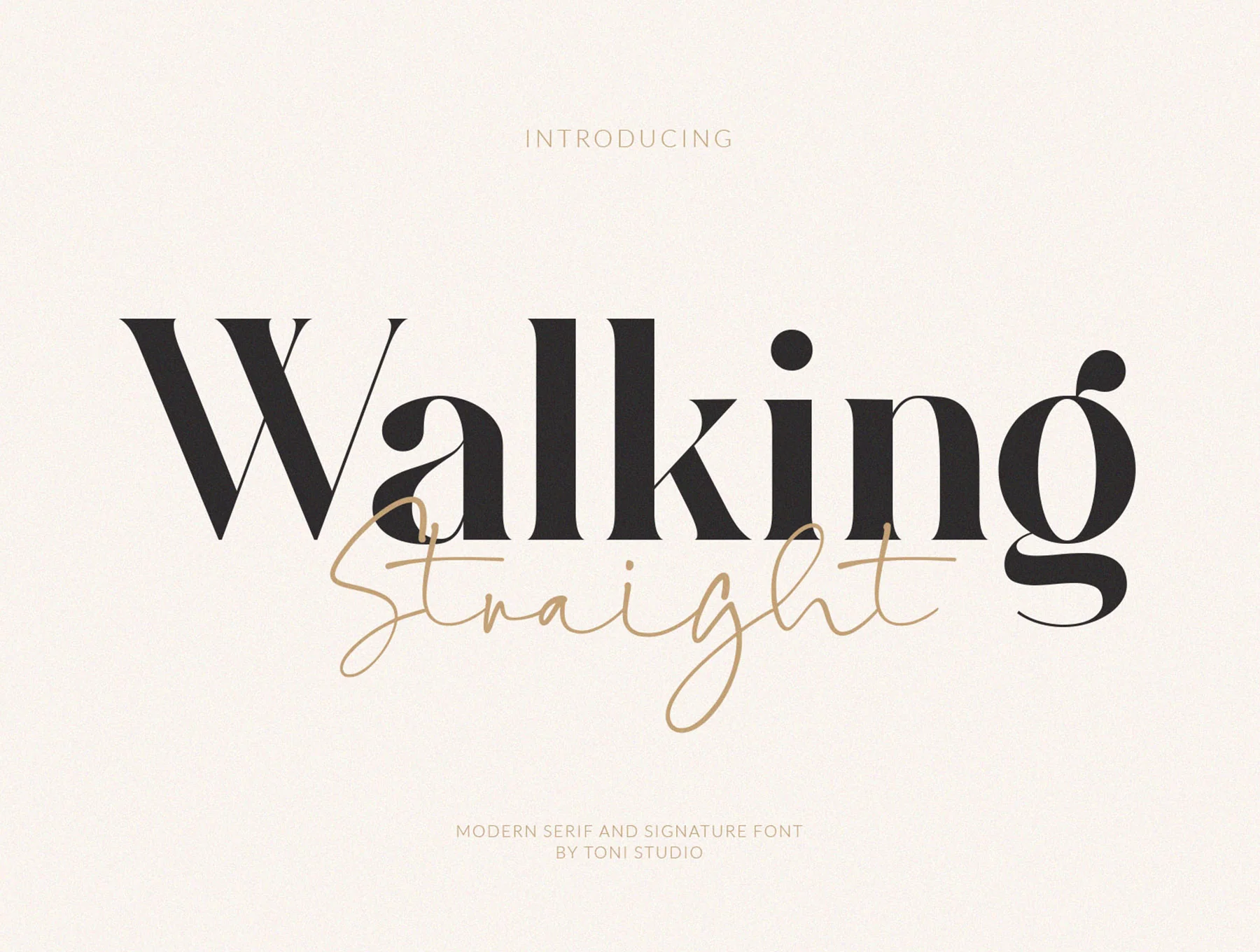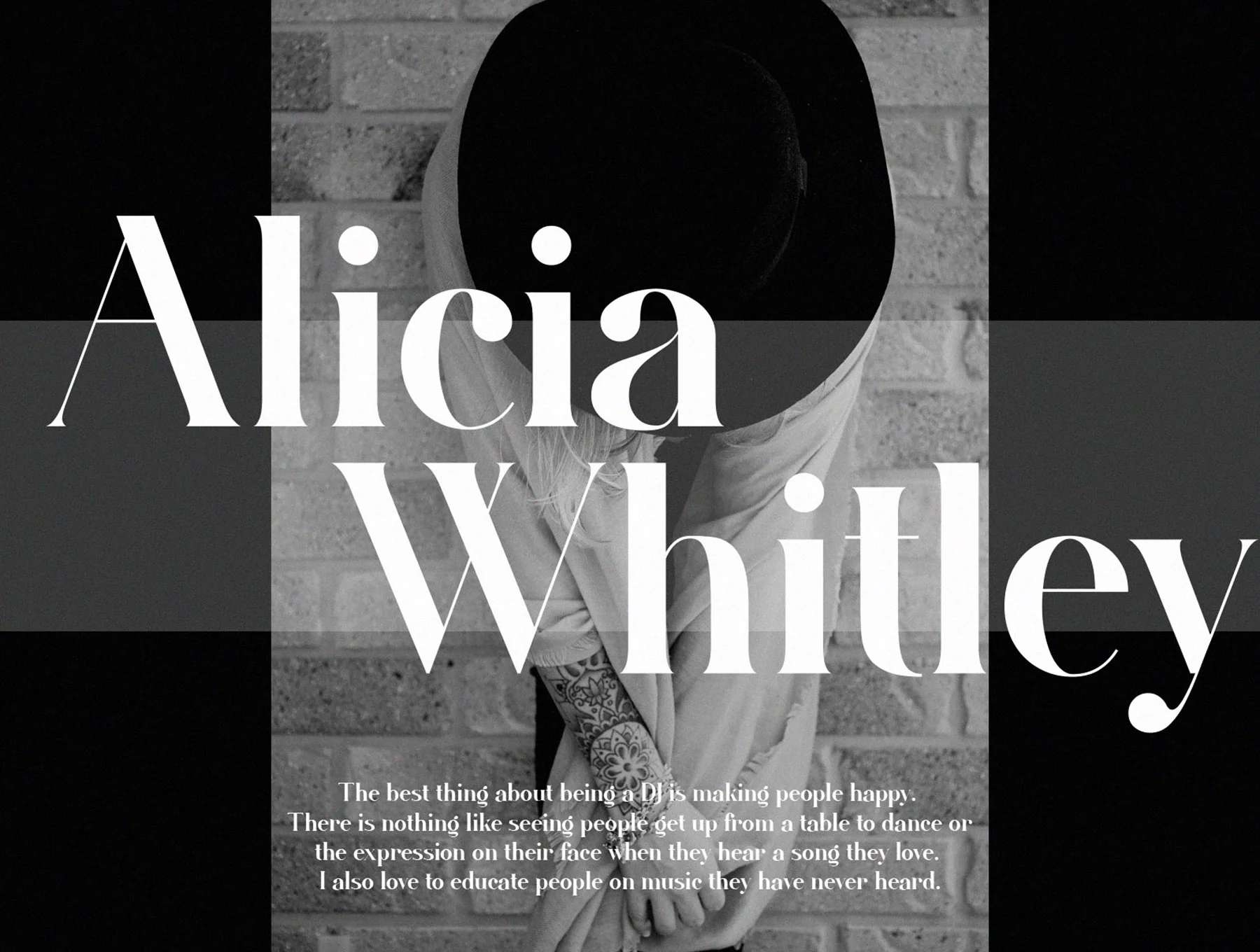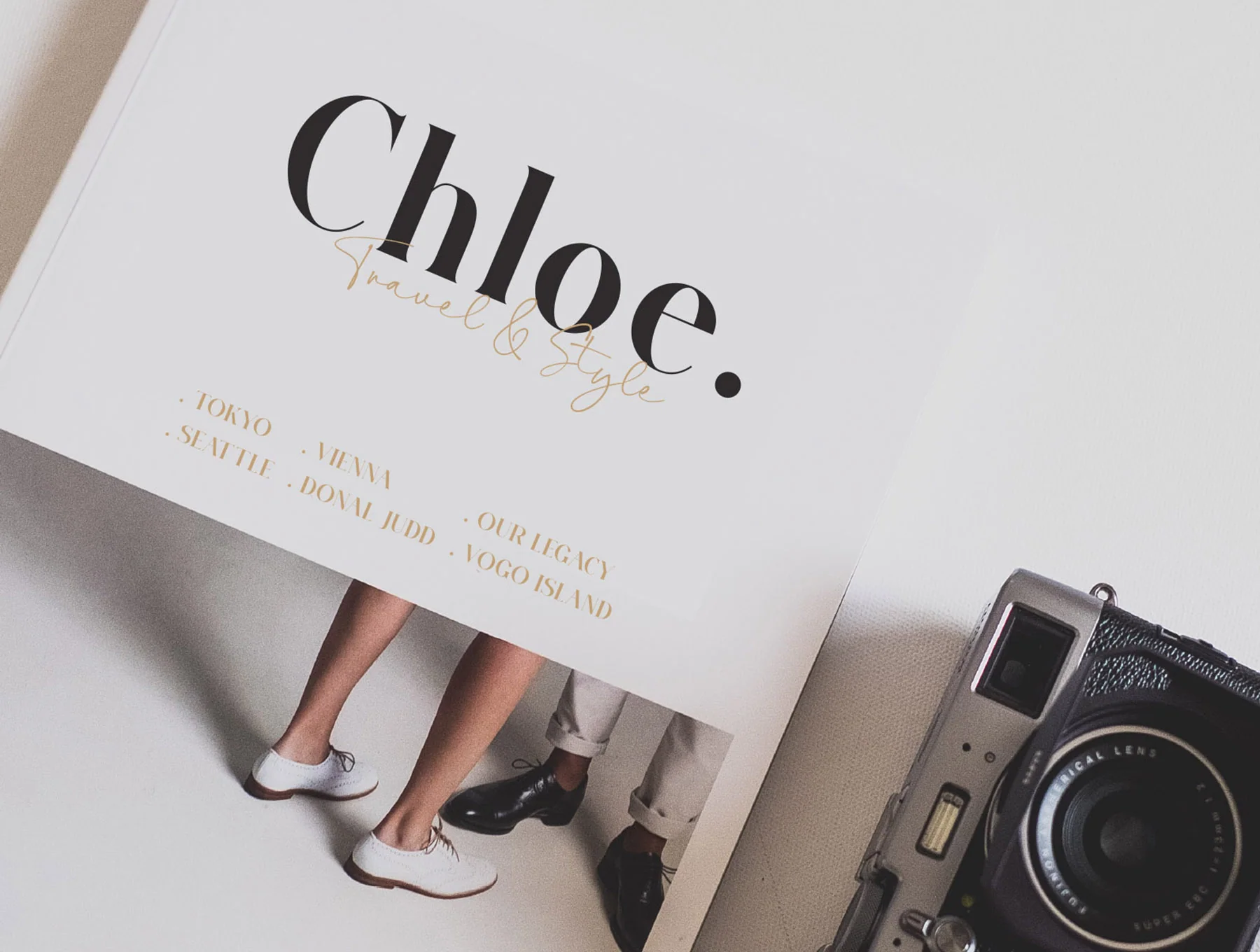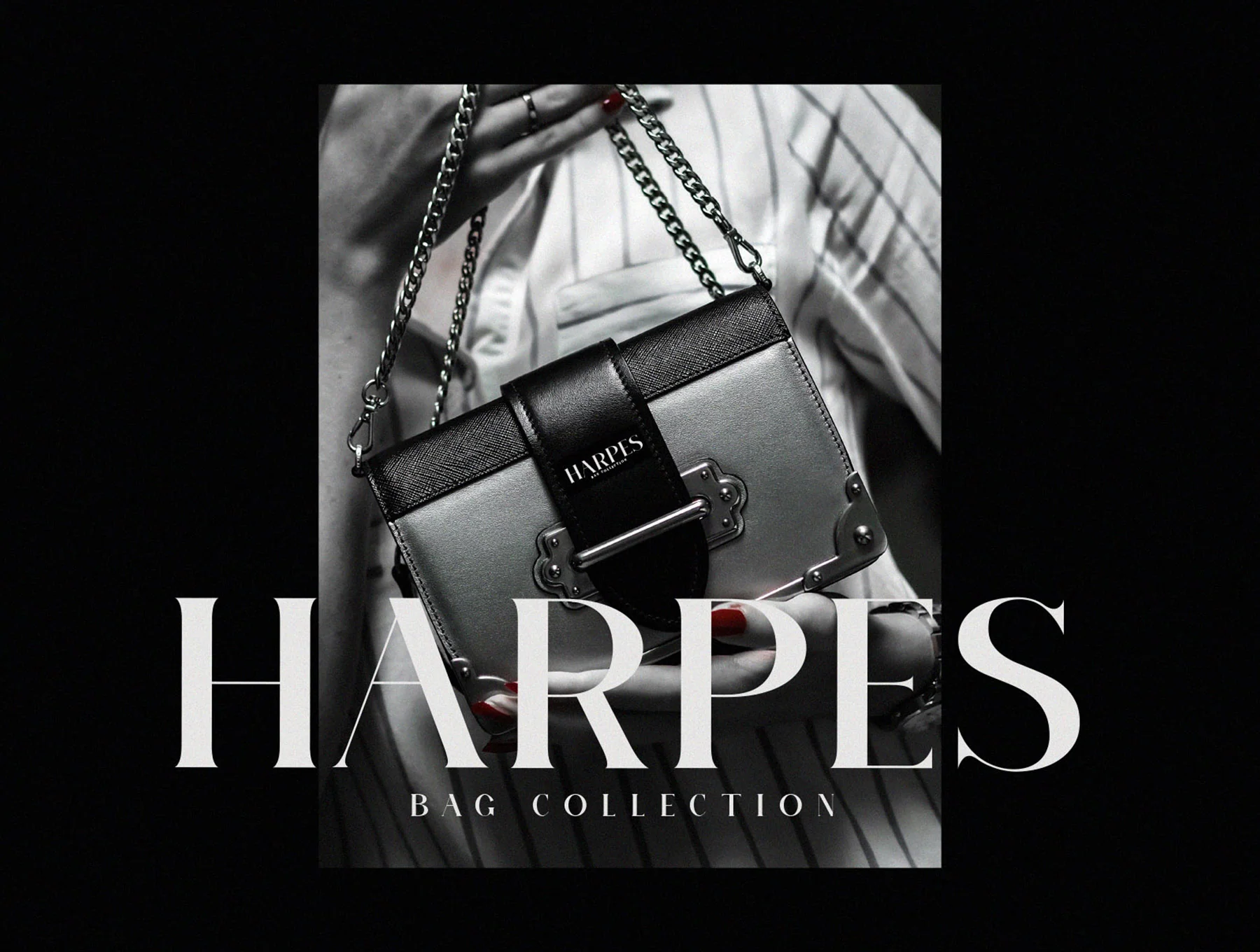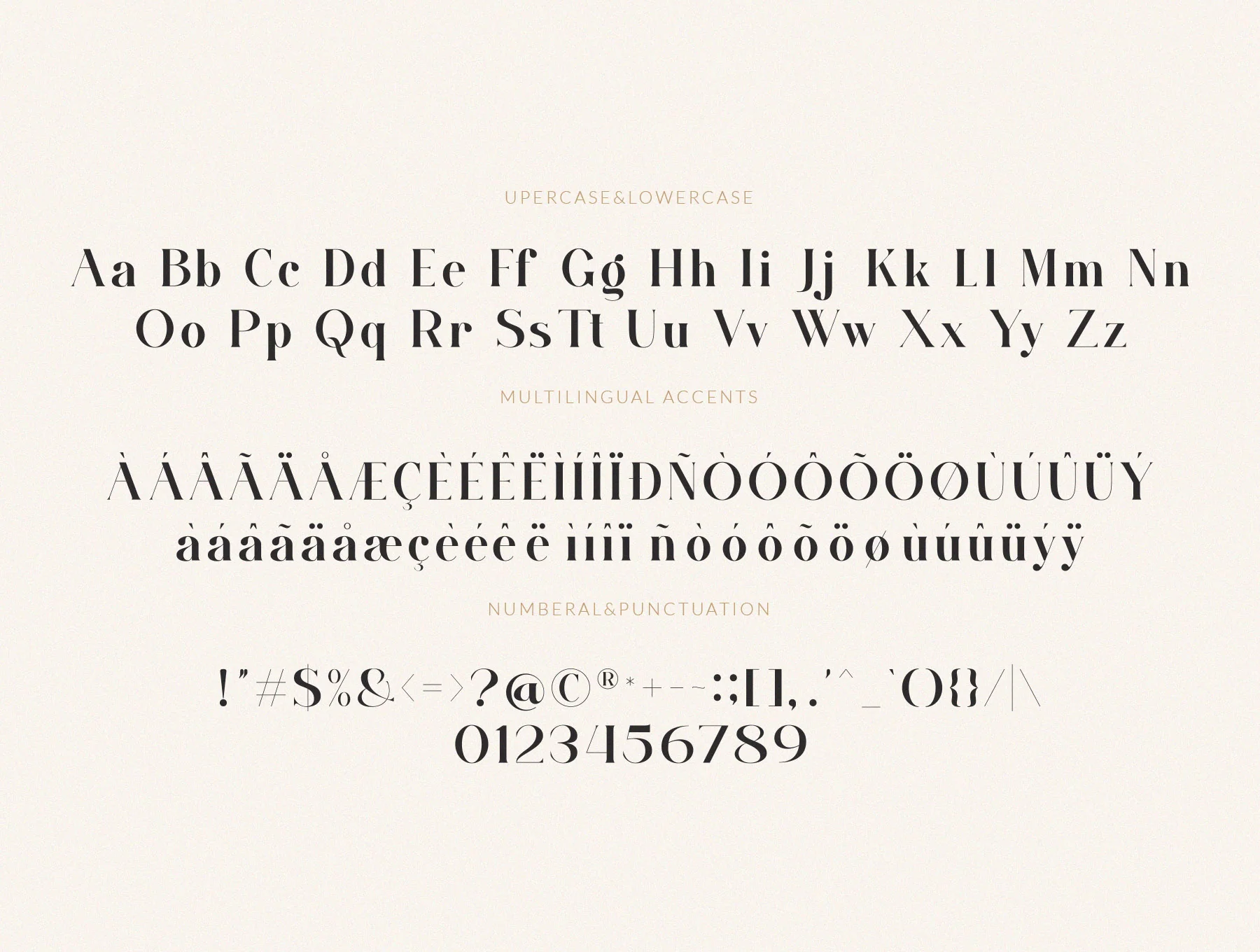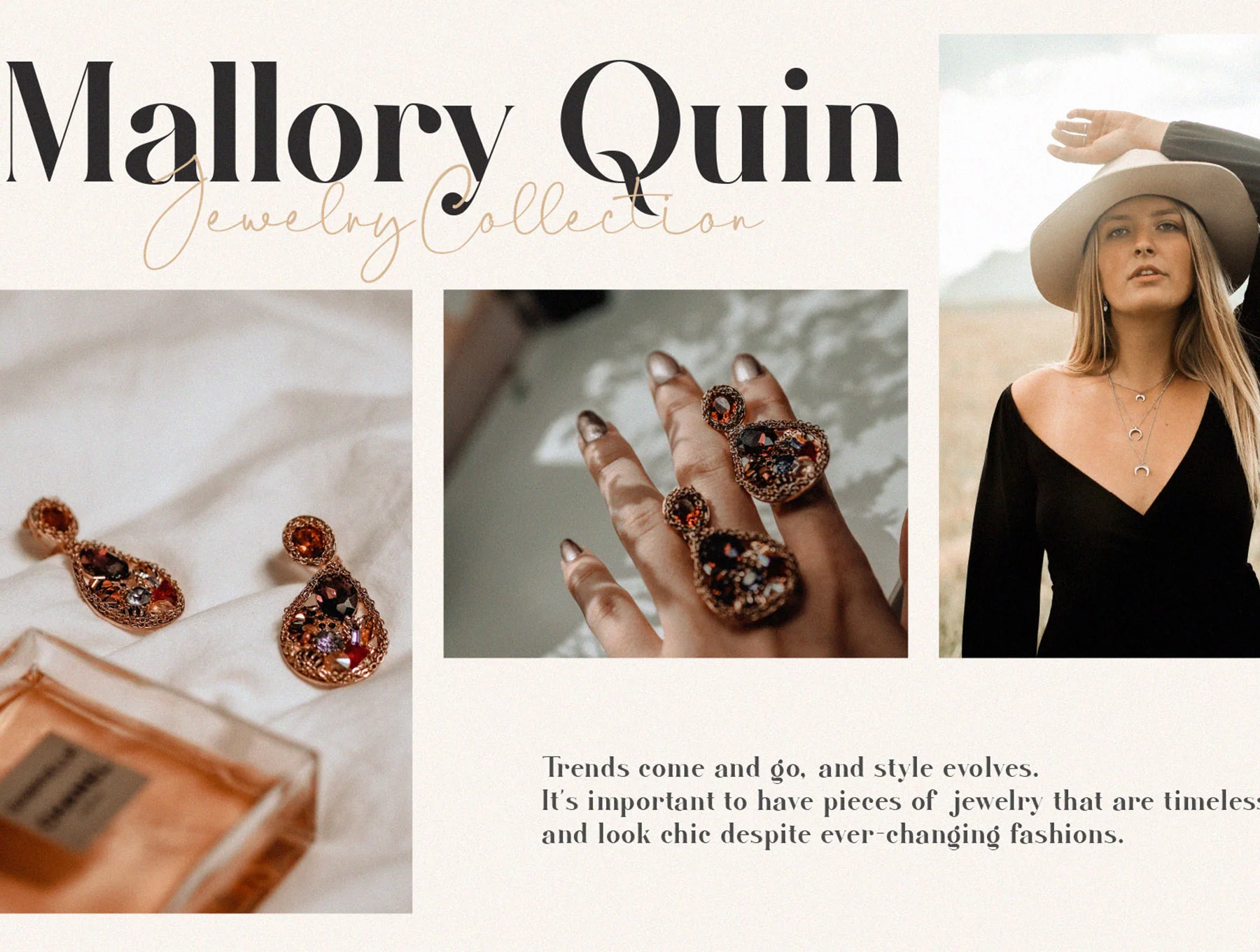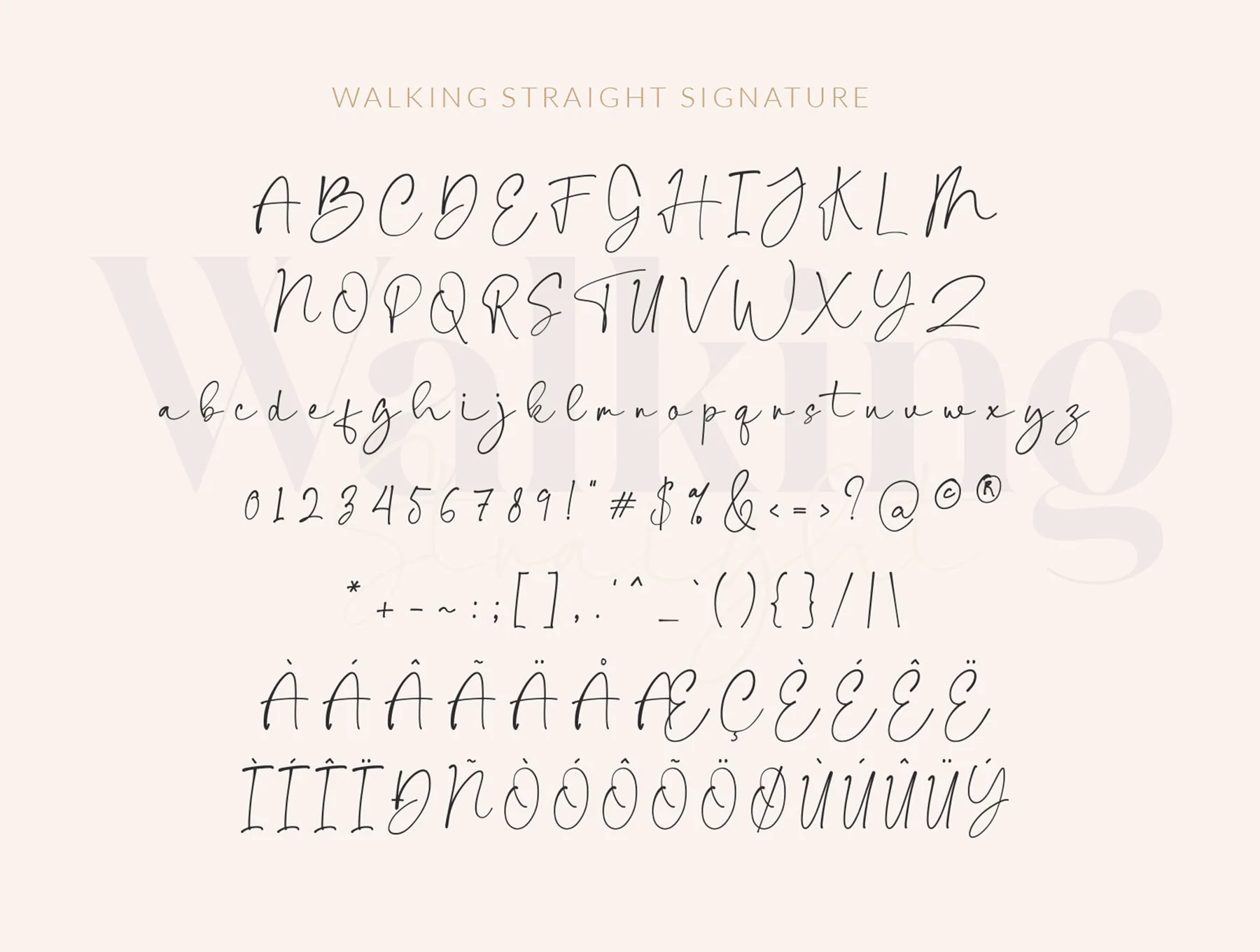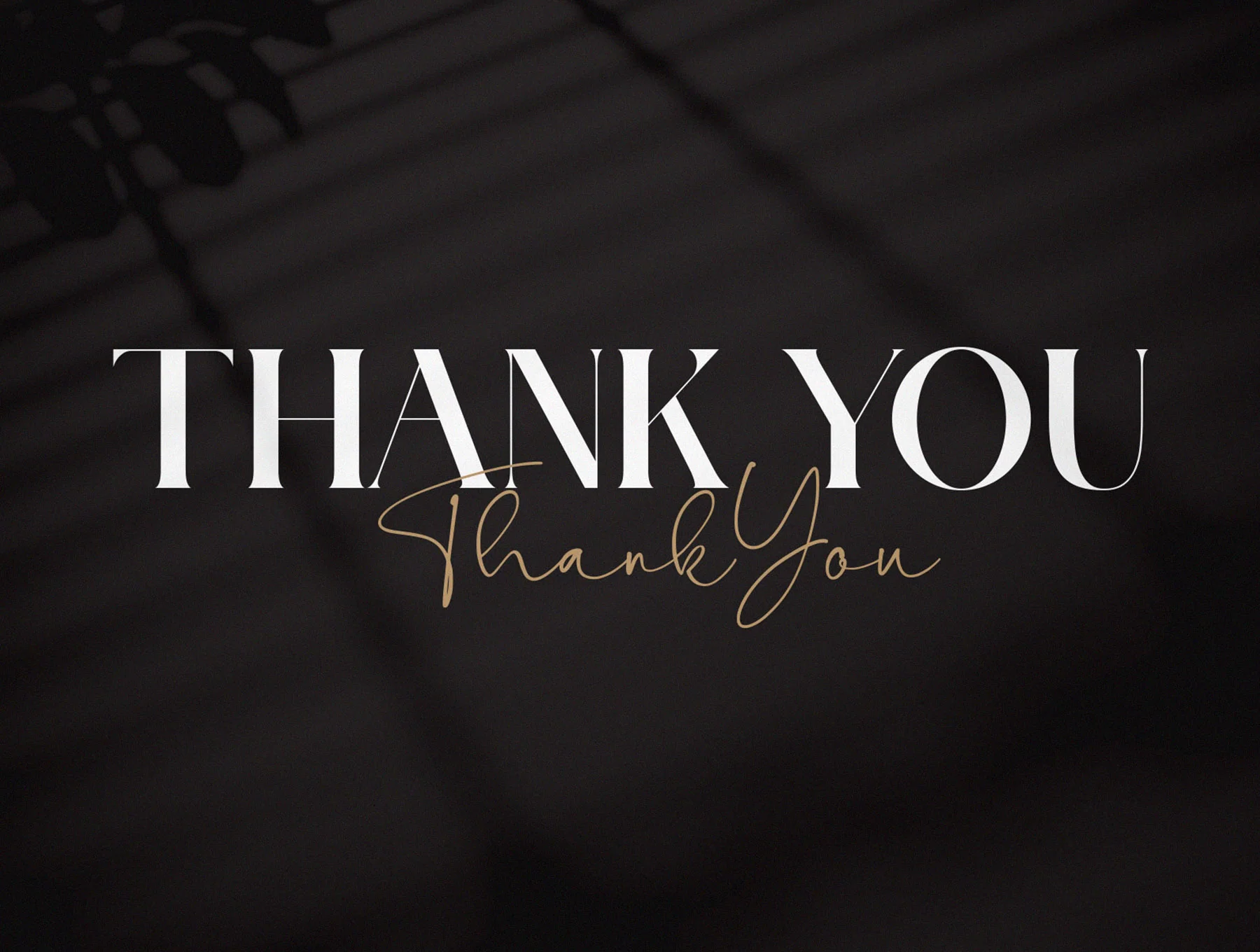
walking Straight_font duo_serif and signature typeface
Contemporary serif with signature style
Walking Straight Font Duo pairs a refined modern serif with a signature script, pre-matched for elegant design work. Ideal for luxury logos, branding, editorials, magazines, cosmetics, fashion promos, galleries, boutiques, stationery, blogs, ads, invitations, quotes, decor, covers, and events. Includes numbers, punctuation, multilingual support, and extra features.